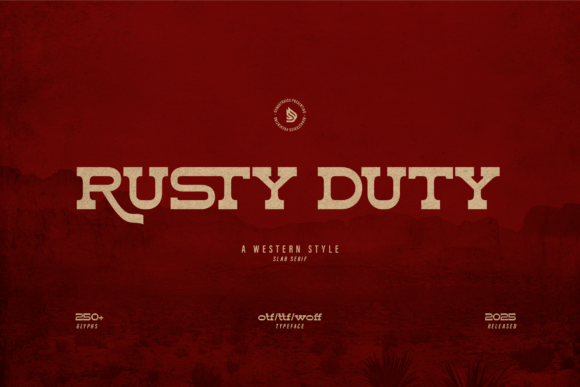
Rusty Duty: A Bold Font for Rugged Designs
Rusty Duty is a rugged slab serif font that captures the essence of vintage Americana. Its bold Western spirit and sturdy characters make it an excellent choice for designers, marketers, and creators who want to evoke a sense of adventure, authenticity, and strength in their work. Whether you're crafting a brand identity for a cowboy boot company or designing a poster for a mountain retreat, Rusty Duty brings a unique edge that stands out without shouting.
What Makes Rusty Duty Unique?
Slab serif fonts are known for their strong, block-like serifs that give them a no-nonsense, authoritative feel. Rusty Duty takes this concept and infuses it with a touch of the old frontier. The design features thick strokes, angular serifs, and a slightly weathered texture—elements that lend themselves well to rustic themes, Western motifs, and even industrial branding.
Its distinct character set includes uppercase and lowercase letters, numbers, and symbols all crafted with the same attention to detail. This makes it versatile enough to be used not just in headlines but also in body text when a bolder tone is needed. The font’s readability on larger scales ensures it performs well in posters, signage, and packaging where visual impact matters most.
Why Designers Love It
- Strong Visual Identity: Rusty Duty instantly adds personality and gravitas to any project.
- Versatility: Works across print and digital media, from logos to social media posts.
- Historical Appeal: Perfect for designs that aim to reflect nostalgia or Americana.
Applications of Rusty Duty
Rusty Duty is more than just a font—it's a design statement. Here are some of the creative applications where it truly shines:
Headlines and Branding
In branding projects, especially those targeting outdoorsy or masculine audiences, Rusty Duty can anchor a logo or headline with confidence. Think of a craft beer label or a leather goods brand—Rusty Duty gives these products an instant sense of durability and tradition.
Example: A local distillery launching a new line of whiskey could use Rusty Duty for their bottle labels and marketing materials to convey a rich heritage and rugged charm. Pair it with earthy colors like deep browns and muted reds to enhance the nostalgic feel.
Posters and Event Promotion
For event posters, Rusty Duty’s boldness ensures your message grabs attention from a distance. Whether it's a rodeo, a music festival in the mountains, or a historical reenactment, this font fits naturally into the theme while maintaining clarity and professionalism.
Pro Tip: Combine Rusty Duty with clean sans-serif fonts for supporting text to balance its heaviness. This contrast helps guide the viewer's eye through the poster and keeps the overall design from feeling too dense.
Badges and Logos
Badges are where Rusty Duty really comes into its own. Its slab serifs and strong letterforms create a sense of authority and timelessness, making it ideal for insignias, team emblems, or product seals.
Use Case: An outdoor gear brand might use Rusty Duty for their product badges to highlight toughness and reliability. The font’s character spacing allows for compact yet legible designs, perfect for embroidered patches or metal tags.
Web Design and Digital Media
Though primarily designed for print, Rusty Duty can also be adapted for web and mobile platforms. With proper sizing and contrast, it reads clearly on screens and can serve as a powerful header font for websites focused on adventure, travel, or lifestyle content.
Recommendation: Use Rusty Duty sparingly online—reserving it for headings and call-to-action buttons. Too much can overwhelm the user, so pair it with simpler fonts for body copy to maintain readability and visual harmony.
How to Style Rusty Duty Creatively
One of the best things about Rusty Duty is how adaptable it is to different styles. Here are a few ways to bring out its full potential:
Layer It with Texture
Because Rusty Duty has a built-in sense of age and grit, layering it with textures like weathered paper, leather grain, or brushed metal can elevate the design further. This approach works especially well for packaging, book covers, or promotional flyers with a vintage aesthetic.
Play with Color
The font looks great in traditional Western hues such as rust orange, forest green, and dark navy. However, don’t shy away from experimenting with unexpected combinations. Try pairing it with bright yellows or deep blues for a modern twist on a classic typeface.
Contrast with Simplicity
To keep your designs from becoming too busy, use Rusty Duty alongside minimalist elements. For instance, a simple black-and-white layout with a single color accent in Rusty Duty can draw focus and add depth without overwhelming the viewer.
Who Can Benefit from Using Rusty Duty?
Rusty Duty isn’t just for Western-themed projects. Its versatility appeals to a wide range of users and industries. Here’s how different professionals can harness its power:
Marketers and Advertisers
If you’re promoting a rugged product or service, Rusty Duty can help you connect with your audience on a visual level. It conveys trust and endurance, which are key selling points for anything from hiking boots to construction tools.
Bloggers and Content Creators
For bloggers focusing on adventure, travel, or DIY culture, using Rusty Duty in headers or pull quotes can reinforce the tone of their content. It adds a touch of character that aligns with storytelling and personal experience-based writing.
Small Business Owners
Entrepreneurs in niche markets like artisanal crafts, coffee roasting, or outdoor gear often rely on strong visual identities to stand out. Rusty Duty offers a bold, memorable style that supports their brand messaging and connects with customers who appreciate authenticity.
Graphic Designers and Print Professionals
Designers working on print campaigns will find Rusty Duty invaluable for creating high-impact visuals. Its structure and weight make it ideal for large-format printing, ensuring it remains sharp and legible even at smaller sizes.
Real-World Project Ideas with Rusty Duty
Looking for inspiration on how to apply Rusty Duty? Here are some practical project ideas that showcase its strengths:
- Product Packaging for Outdoor Gear: Use Rusty Duty for brand names and key slogans to emphasize durability and ruggedness.
- Restaurant Menus with a Country Vibe: Incorporate it in titles for dishes or sections like “Burgers” or “Barbecue” to create a warm, hearty atmosphere.
- Travel Brochures and Guides: Highlight destinations or experiences with bold headings that suggest exploration and excitement.
- Podcast Titles and Covers: If your podcast focuses on history, adventure, or craftsmanship, Rusty Duty can become part of your signature look.
- Merchandise and Apparel Labels: Create custom t-shirts, hats, or mugs with Rusty Duty for a vintage-inspired design that resonates with fans of Americana.
Tips for Effective Use
To get the most out of Rusty Duty, consider these best practices:
- Keep It Simple: Let the font speak for itself by avoiding overly complex layouts or excessive effects.
- Maintain Readability: While Rusty Duty is bold and distinctive, ensure it doesn't compromise legibility, especially in longer texts.
- Stay Consistent: When building a brand around Rusty Duty, use it consistently across all touchpoints to strengthen recognition.
- Test on Different Surfaces: Before finalizing a design, check how the font looks on various materials—from glossy brochures to matte business cards.
Where to Find Rusty Duty
Rusty Duty is available on major font marketplaces like Adobe Fonts, Creative Market, and MyFonts. These platforms offer both desktop and web versions, allowing you to integrate the font into your workflow seamlessly. Always verify licensing terms to ensure compatibility with your intended use case, whether it's for a client project, personal blog, or commercial product.
Once you’ve added Rusty Duty to your toolkit, start experimenting. You’ll quickly see how it transforms ordinary designs into something memorable and meaningful.
Final Thoughts
Rusty Duty is more than just another typeface—it’s a design tool that reflects character, strength, and a timeless appeal. Whether you're looking to build a brand, create impactful posters, or add a dash of Western flair to your next project, this font delivers with every stroke. By understanding its strengths and limitations, you can use Rusty Duty effectively to communicate your message in a way that feels both authentic and powerful.